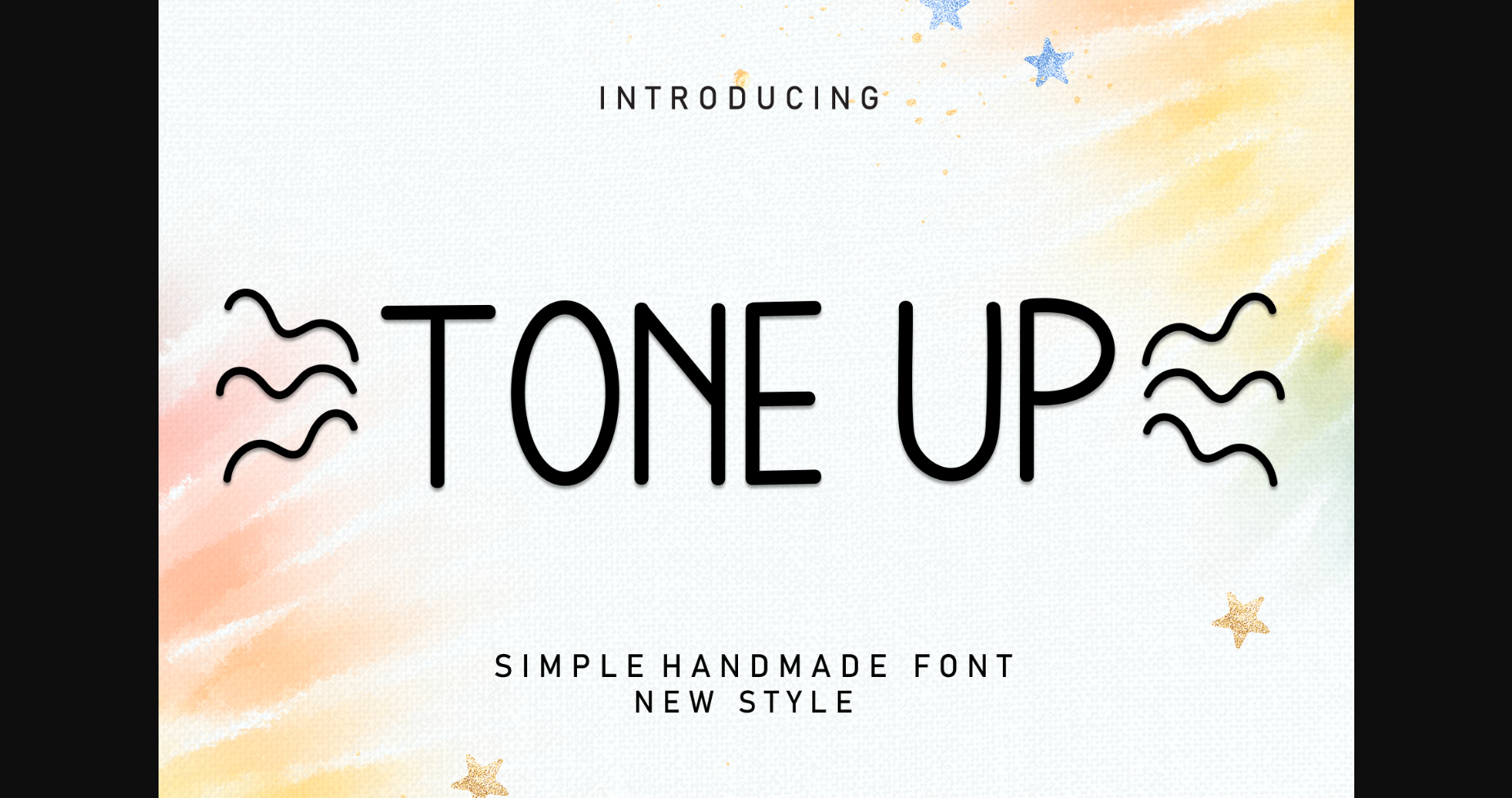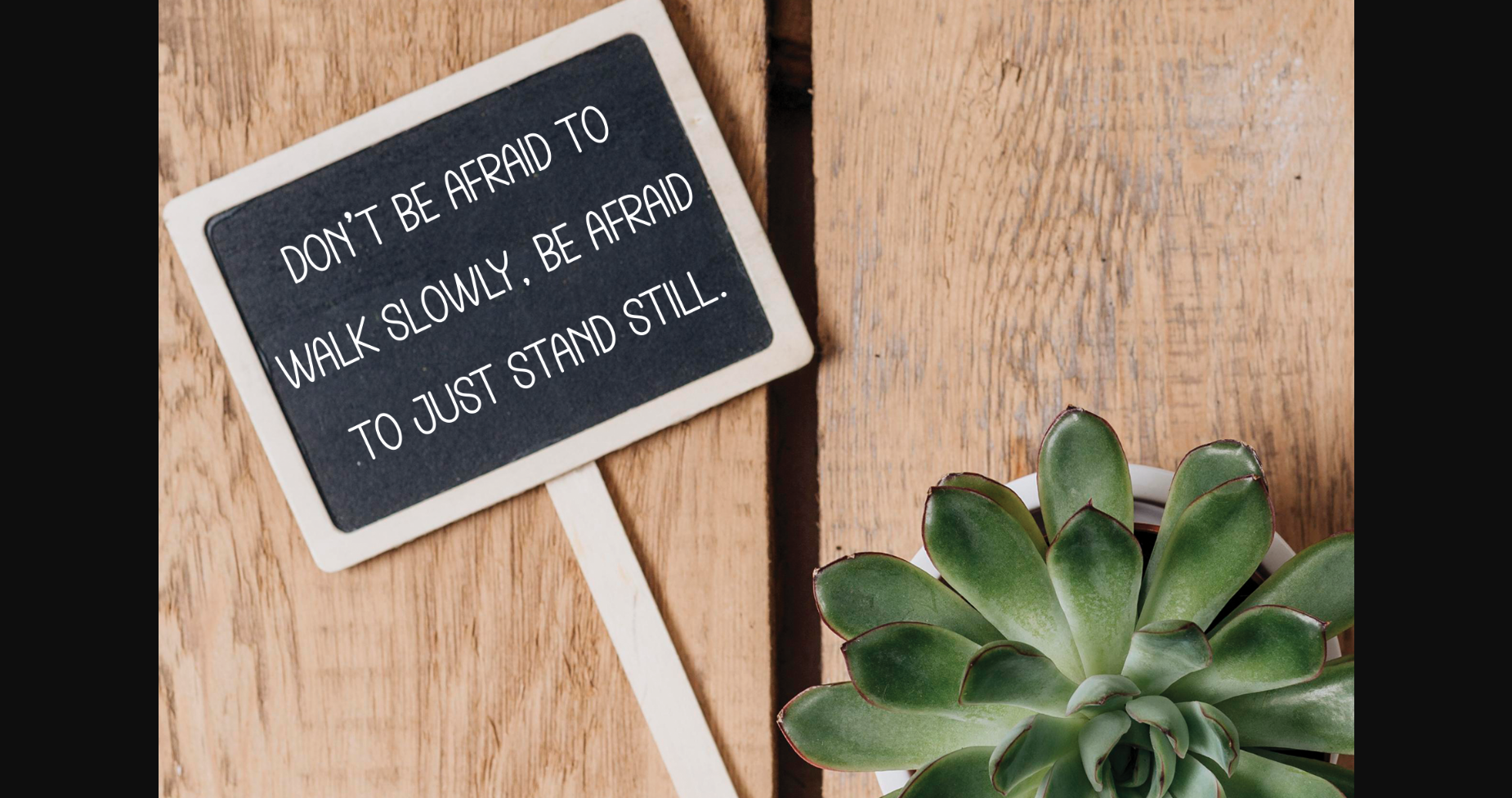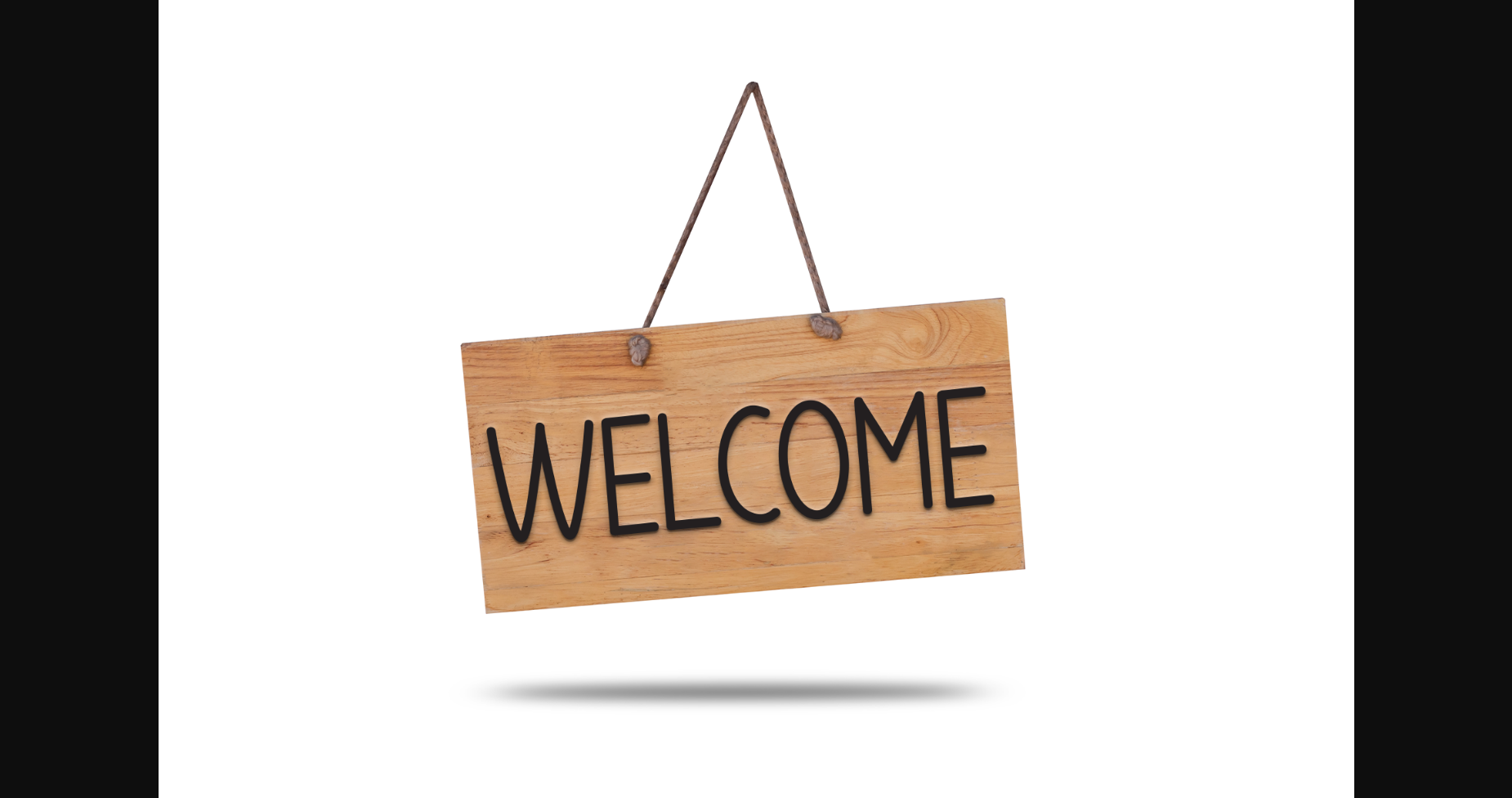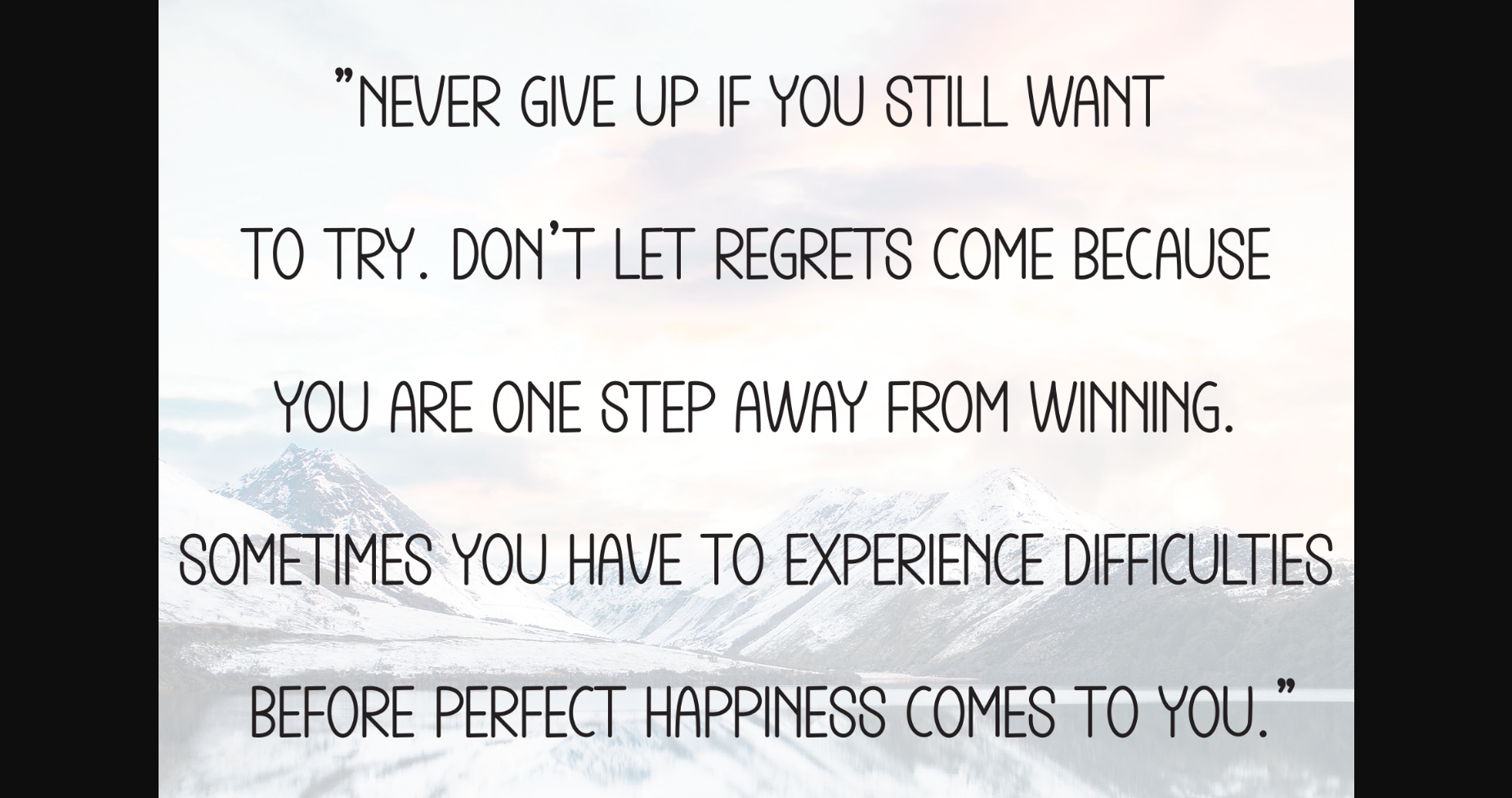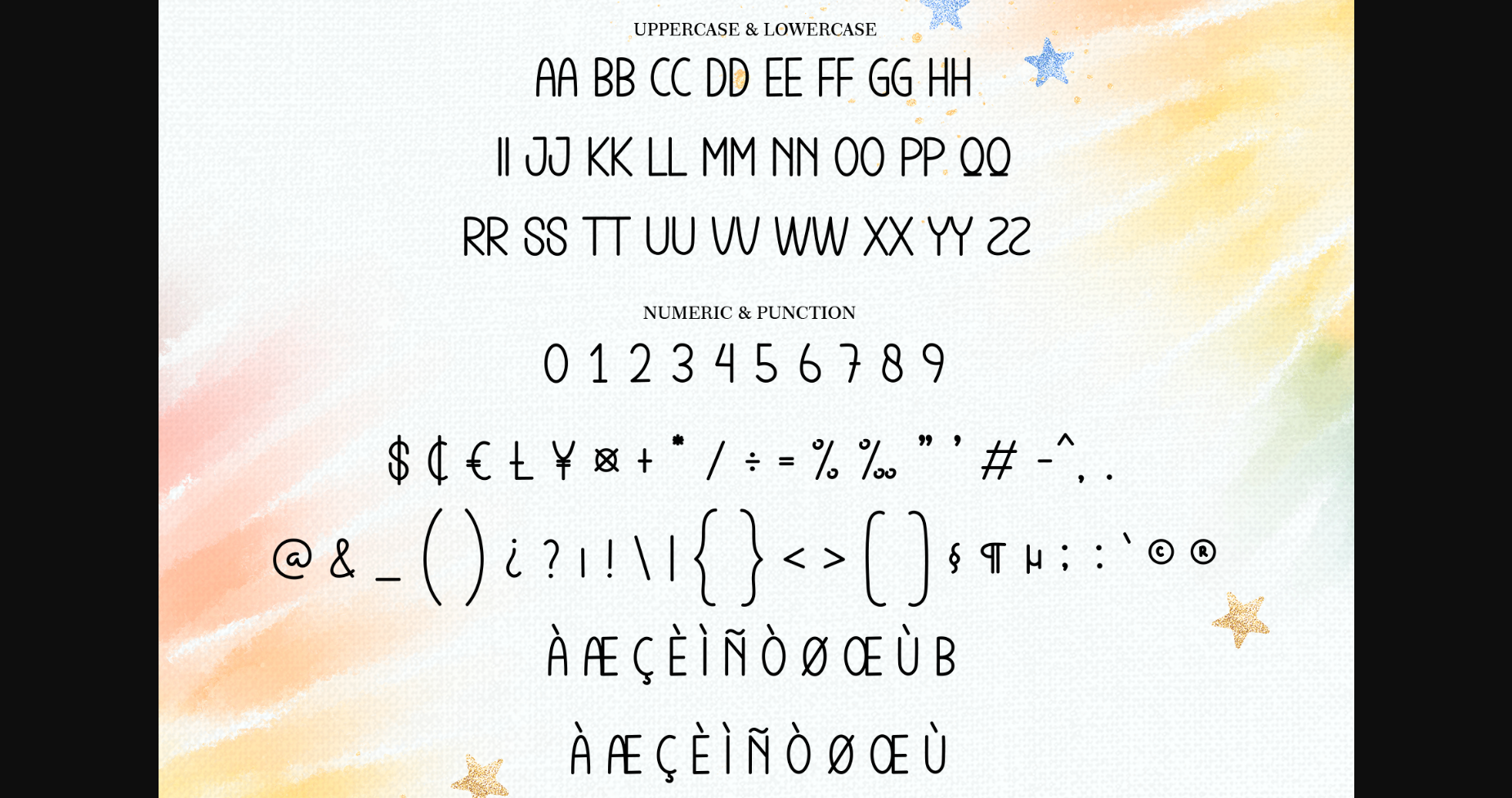
About Tone Up Font
Tone Up is a sweet and friendly handwritten sans-serif font. Fresh and casual, this font is ideal for writing wedding invitations, cards, or any other design that might need a lovely touch.